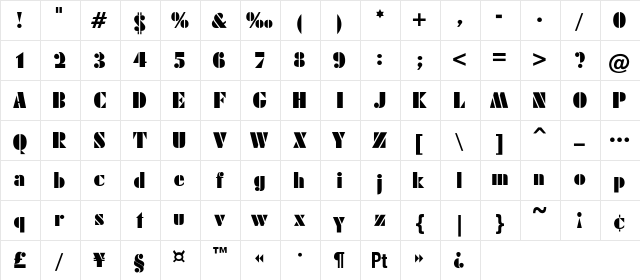
Futuri-Black-Normal Regular Font Preview
Futuri-Black-Normal Regular
Futuri-Black-Normal Regular Font Details
Design Context for Futuri-Black-Normal Typeface
Futuri-Black-Normal channels digital-age aesthetics through its sharp, structured letterforms — ideal for brands that want to signal innovation.
Pro Tip: Try Futuri-Black-Normal with generous letter-spacing in UI labels and navigation — the geometric forms benefit from room to breathe.